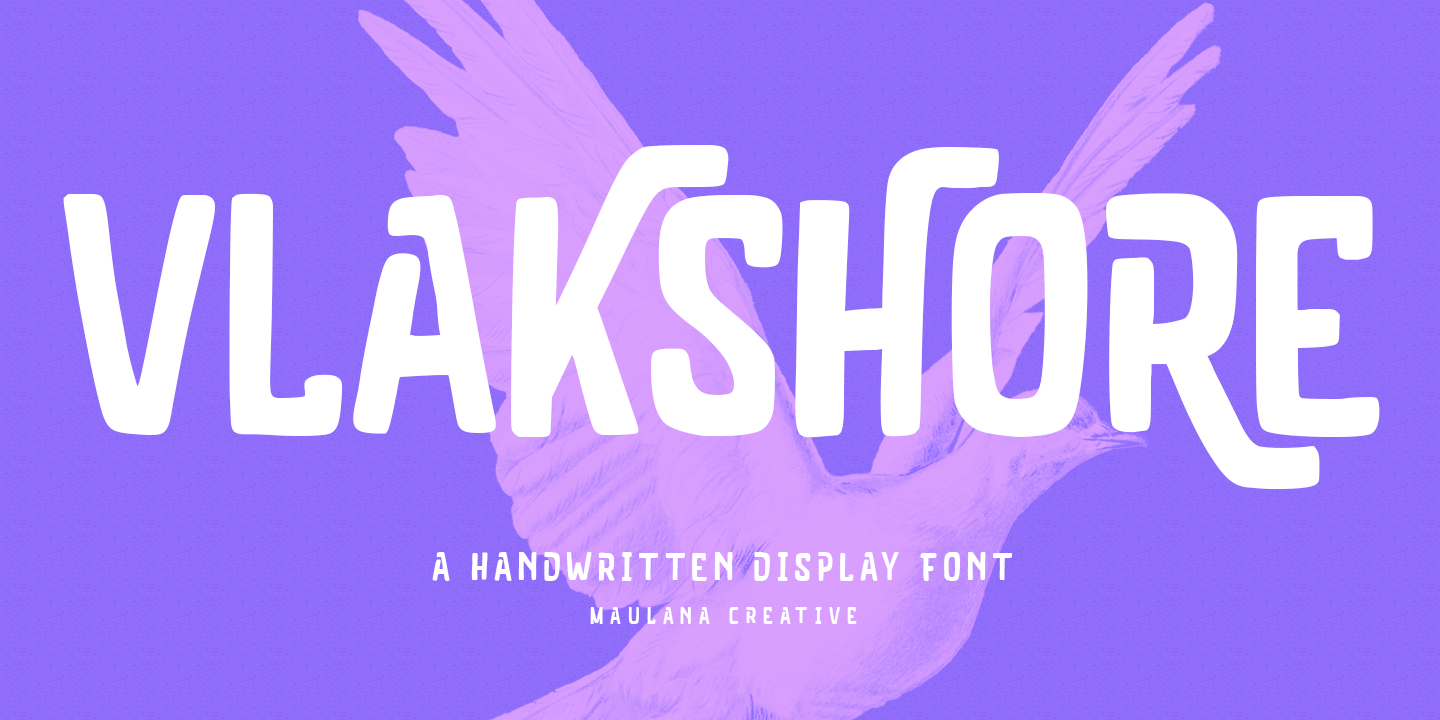
Vlakshore Font is perfect for coastal resort branding, maritime shipping companies, lakeside cabin promotions, beachfront restaurant menus, nautical equipment advertising, waterfront property marketing, sailing club identities, marine conservation campaigns, seaside tourism promotions, and aquatic adventure company logos. Its serene waterfront character makes it ideal for projects requiring coastal tranquility and maritime authenticity.
What makes Vlakshore Font exciting is its peaceful embodiment of coastal serenity and waterfront elegance with flowing letterforms and maritime-inspired characteristics that transport viewers to tranquil shorelines and peaceful water environments. The font features gentle curves, wave-like stroke patterns, and organic character details that create authentic coastal atmosphere and maritime appeal. Its calming personality brings tranquility and natural beauty to contemporary designs while maintaining the readability essential for tourism communications and maritime presentations. The carefully crafted coastal elements ensure visual harmony while preserving the distinctive character that embodies the essence of waterfront living and coastal elegance excellence.
Vlakshore Font comes in multiple coastal variations including Light, Regular, Medium, Bold, and Wave styles. Each family member maintains the distinctive maritime character while offering comprehensive flexibility for coastal typography and waterfront brand system development. The complete font family includes alternate characters, nautical symbols, and coastal decorative elements that provide extensive tools for creating immersive shoreline design experiences and authentic maritime brand storytelling.
Whether you're developing coastal brands, maritime businesses, or waterfront tourism projects, Vlakshore Font Free Download provides the serene elegance needed to communicate with travelers and coastal enthusiasts who appreciate waterfront beauty and maritime lifestyle. The font's peaceful appeal resonates with vacationers, sailors, and coastal residents seeking authentic maritime credibility and shoreline sophistication. Its comprehensive character set includes nautical symbols and coastal marks, making it perfect for creating complete waterfront brand systems and memorable maritime storytelling across diverse coastal applications and shoreline-focused design projects that celebrate coastal living and maritime heritage excellence.